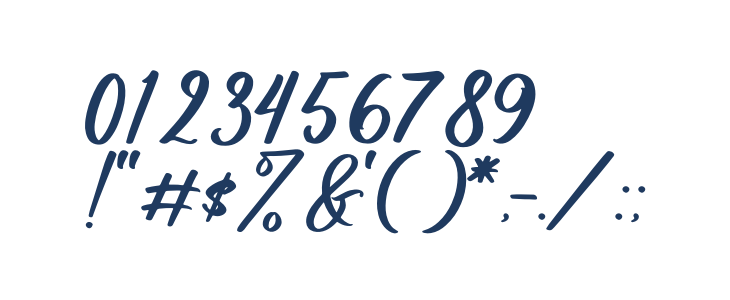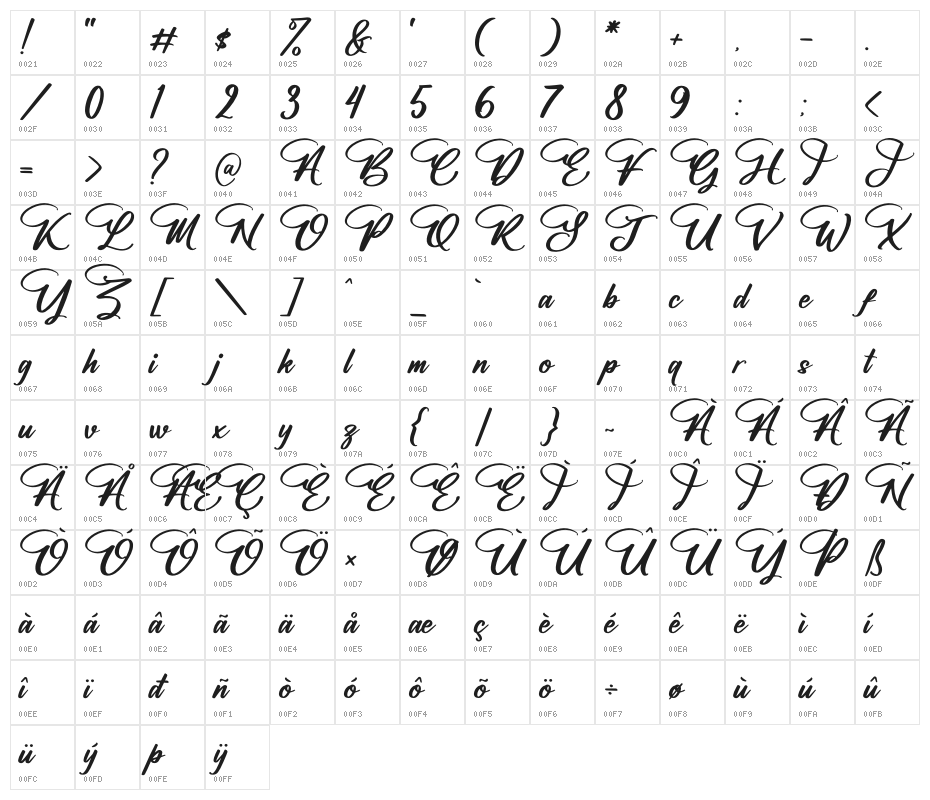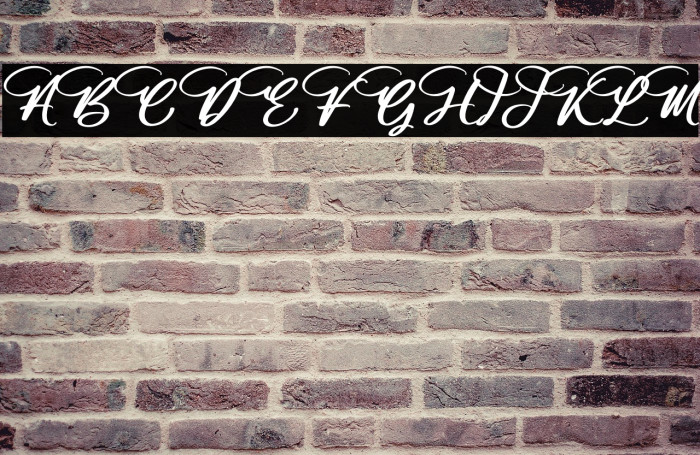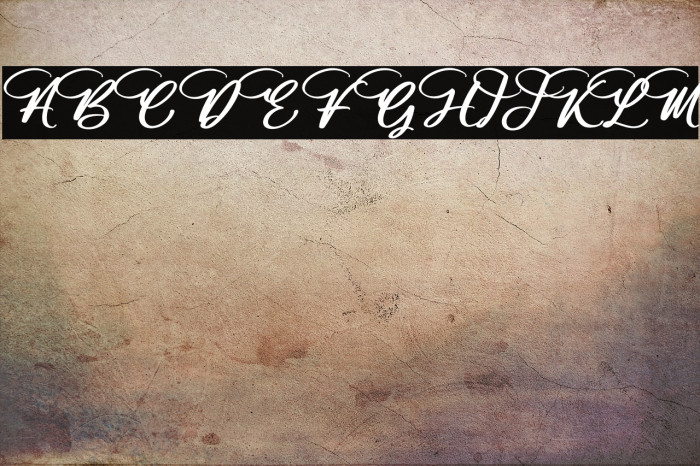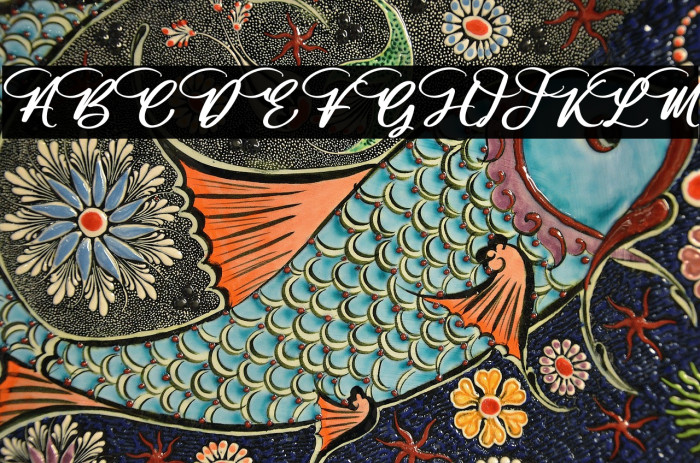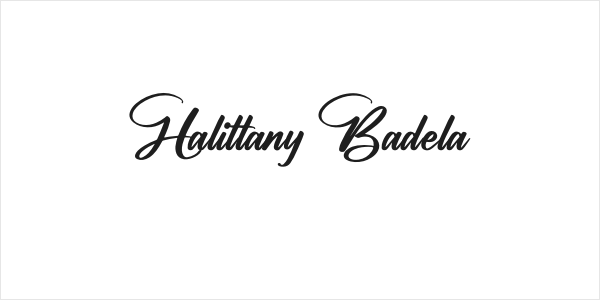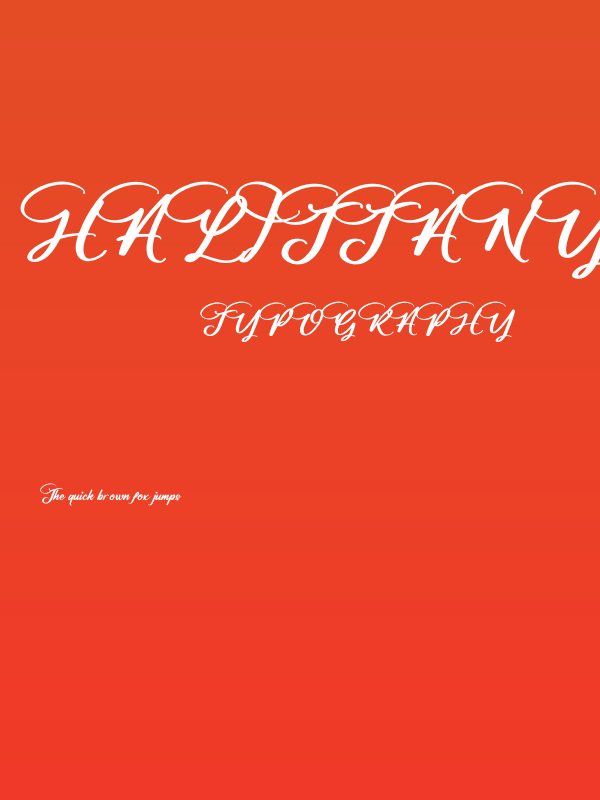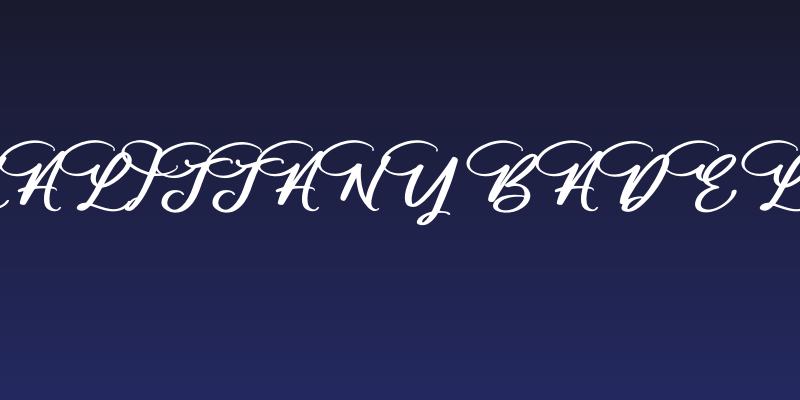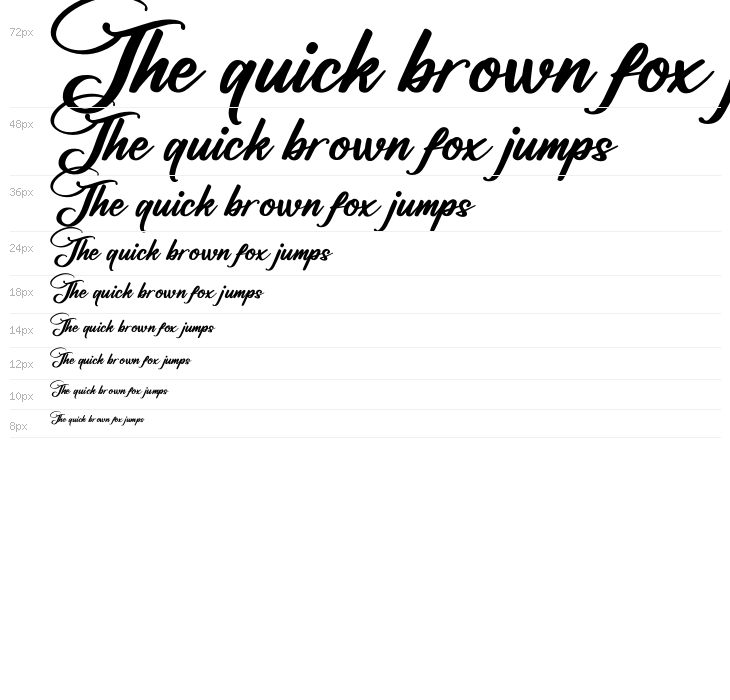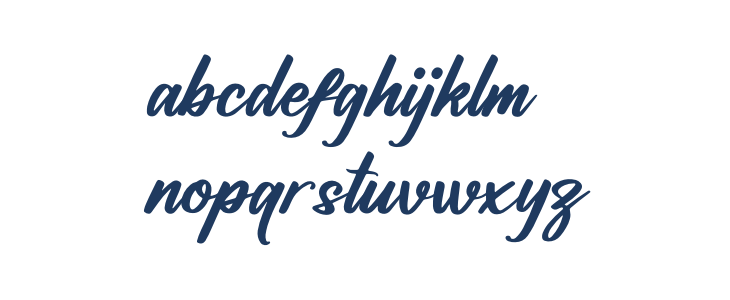
Halittany Badela Font
Halittany Badela Description
This font features a flowing, cursive style with elegant loops and swashes, giving it a sophisticated and artistic appearance. The uppercase letters are particularly ornate, with intricate connections between strokes, while the lowercase letters maintain a smooth, fluid motion. The numerals and special characters are designed to complement the overall script style, maintaining consistency in their curved forms. This font exudes a sense of elegance and creativity, making it suitable for projects that require a touch of class and personality.